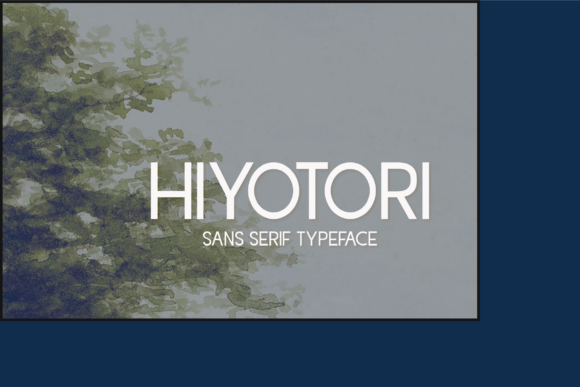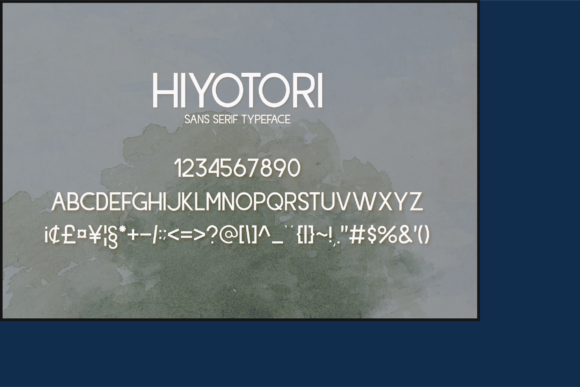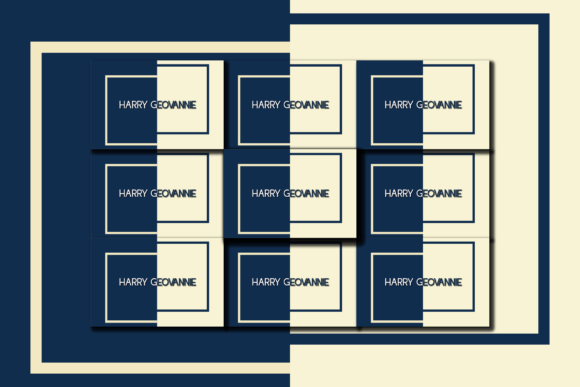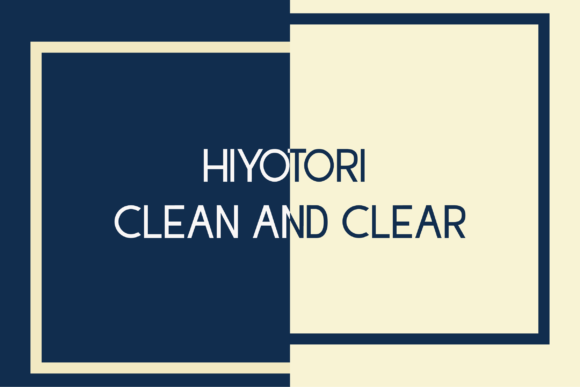
About Hiyotori Font
Hiyotori is a gorgeous and sophisticated sans serif font. It comes in three different styles that make it versatile and timeless. Get inspired by its refined look.